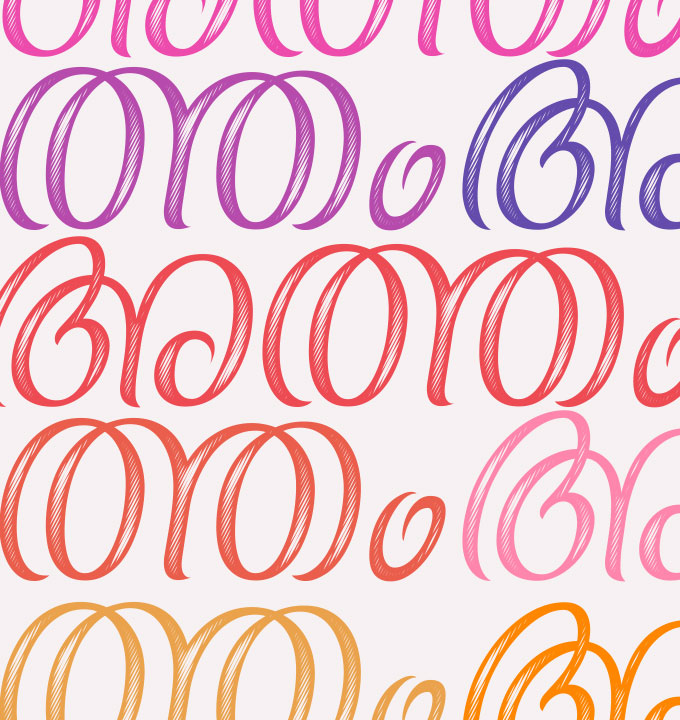
Free Malayalam fonts take a step forward with Fontspell Atham, a modern Unicode typeface and the very first free font released by Fontspell. Inspired by the festive elegance of Onam, it blends calligraphic handwriting aesthetics with crisp digital precision. Built for festive branding, social graphics, and print media, the family includes two distinct styles—Atham Regular and Atham Rough (featuring textured, hatched strokes). Fully Unicode-compliant and compatible across Windows, Mac, Android, and iOS, FSL Atham ensures flawless rendering and high legibility across all formats.